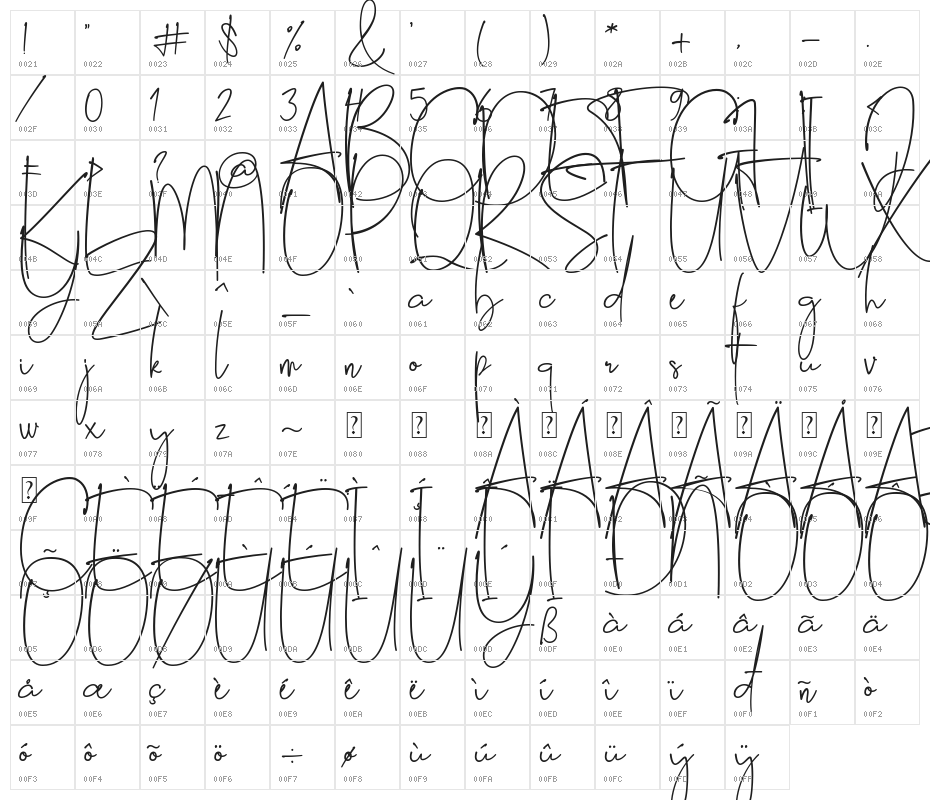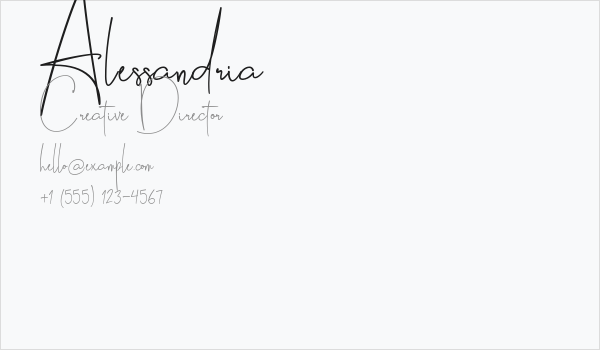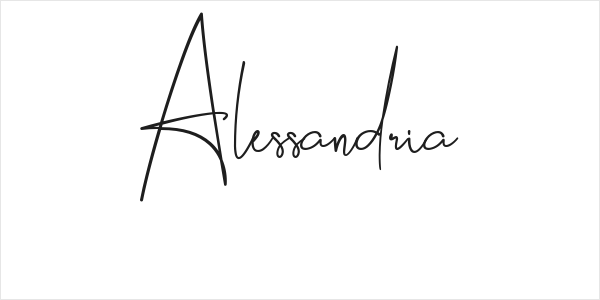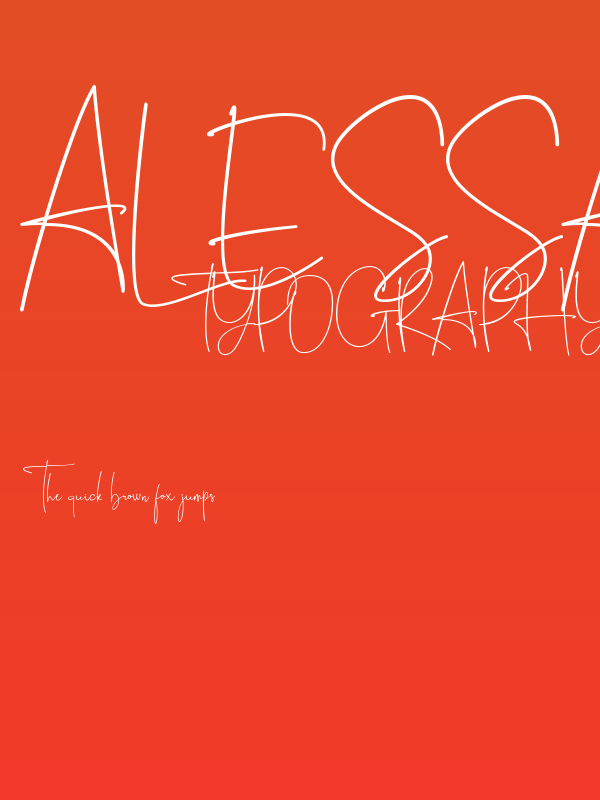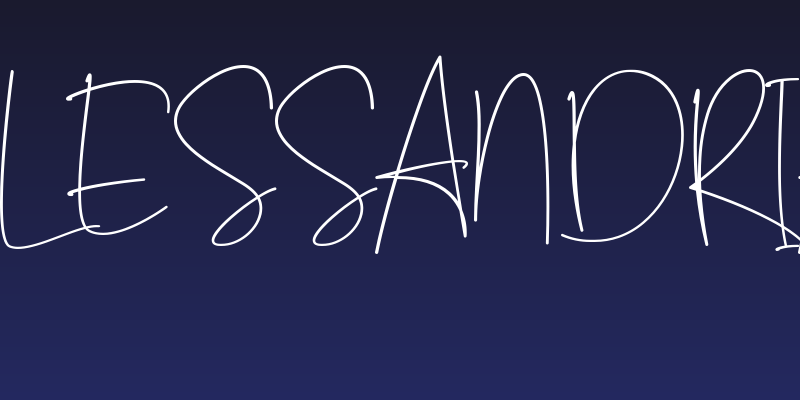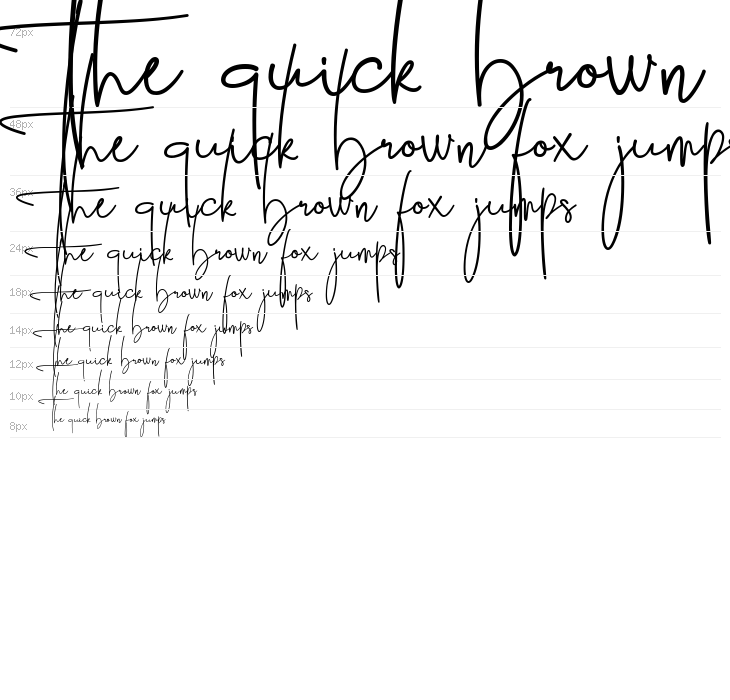
Alessandria Font
Alessandria Description
This font features a dynamic and expressive handwritten style, characterized by its fluid and organic strokes. The uppercase letters are tall and slender, with a playful and slightly irregular baseline that adds a whimsical touch. The lowercase letters maintain a consistent flow, with some characters extending below the baseline, enhancing the font's casual and informal appearance. The numerals are clear and legible, matching the overall handwritten aesthetic. Special characters are creatively integrated, maintaining the font's unique personality. This font exudes a sense of spontaneity and creativity, making it ideal for projects that require a personal and artistic touch.
| Overall Style | Casual, Artistic |
| Use Case | Logos, Invitations, Social Media Graphics |
| Proposed Projects | Ideal for greeting cards, invitations, personal branding, artistic projects, and social media graphics. |